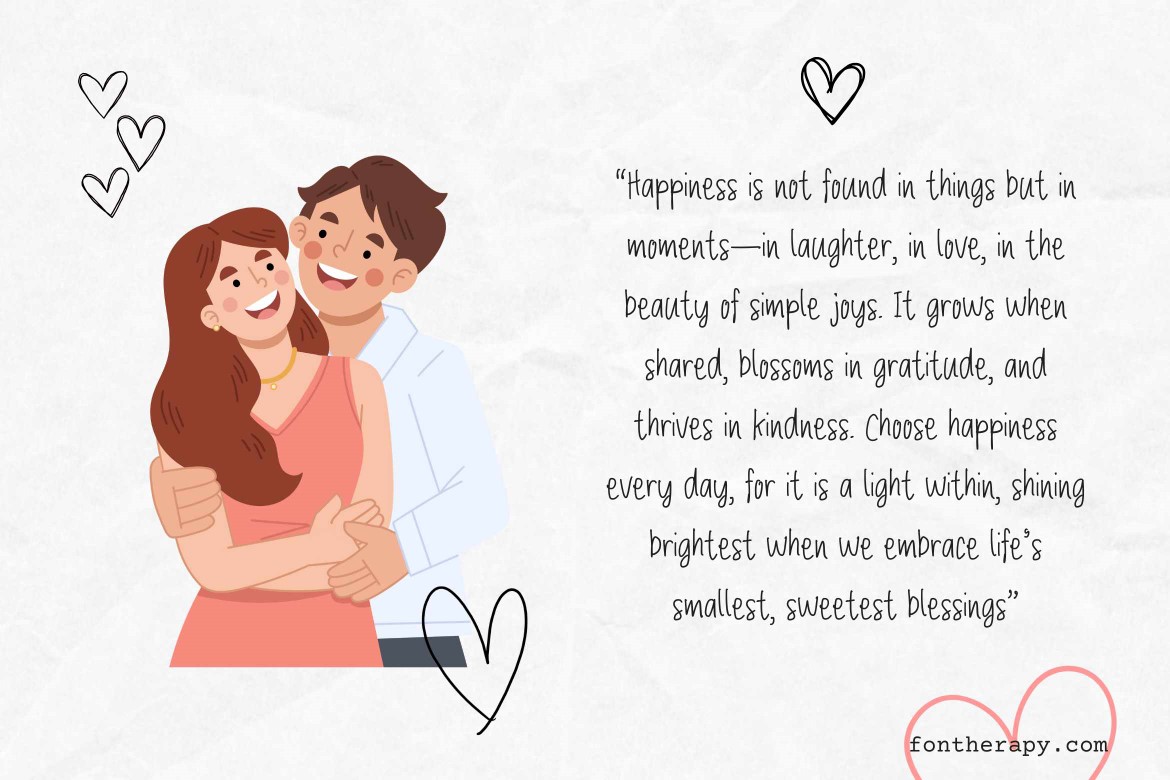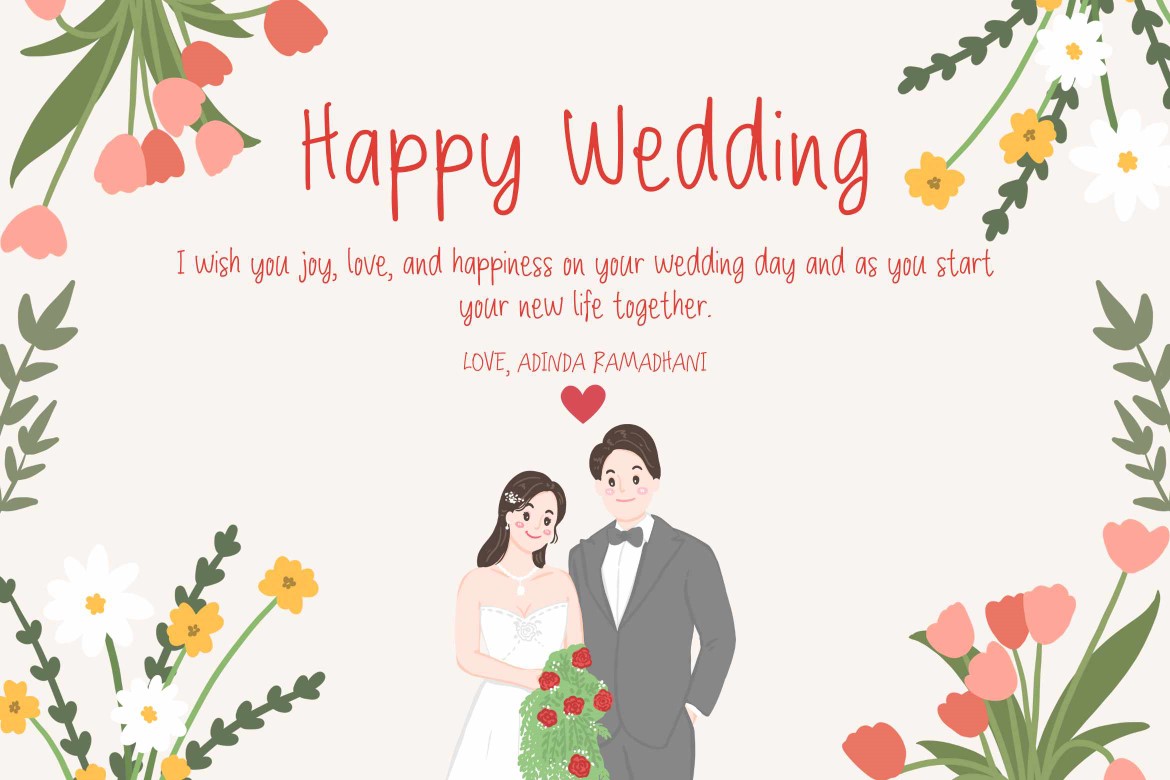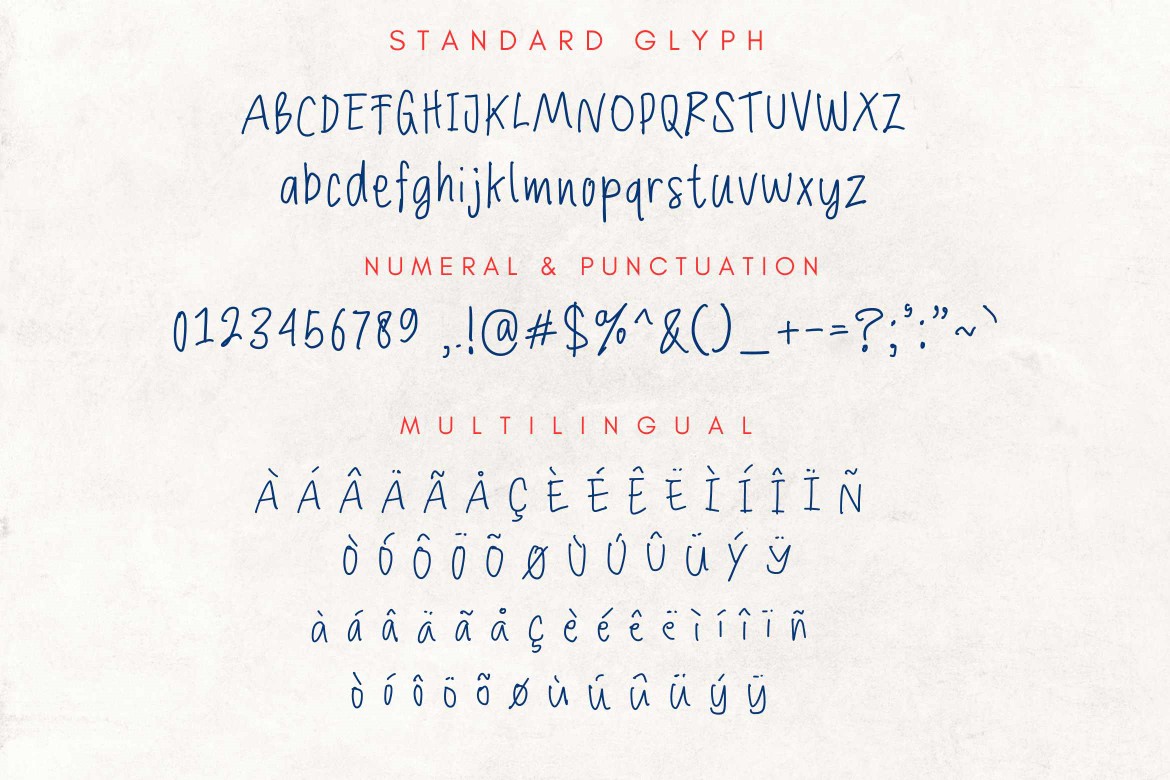
Wife Notes
Wife Notes is a simple, natural handwritten font that exudes romance and warmth. Its casual yet elegant strokes mimic the flow of personal handwriting, making it perfect for designs that aim to feel heartfelt and intimate. This font is ideal for:
Love Letters and Notes: Perfectly captures the essence of personal and emotional messages.
Wedding Invitations: Adds a touch of romance and authenticity to wedding stationery.
Romantic Projects: Suitable for Valentine’s Day cards, anniversary designs, and couple-themed branding.
Journals and Diaries: Creates a natural and cozy feel for personal writing projects.
Home Decor and Gifts: Great for quote designs, posters, or custom gifts with a romantic touch.
Wife Notes blends simplicity and sentimentality, making it a versatile choice for any project that seeks to express love and connection.